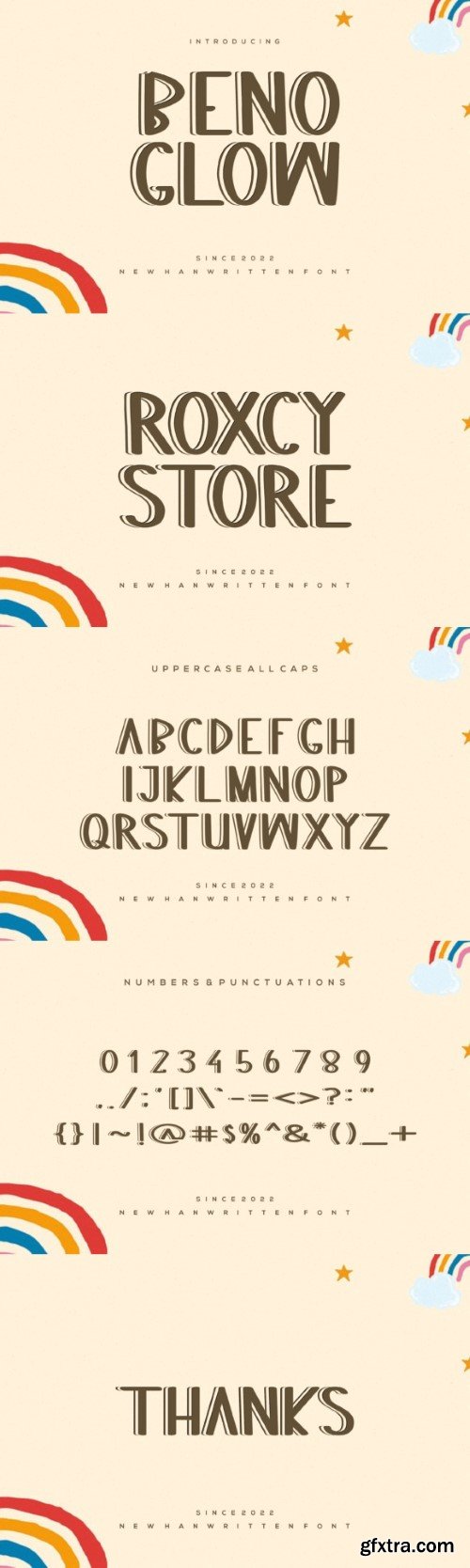
本戈洛字体
Benoglow is a sans serif font with a charming touch of style. This font is suitable for those who want a design that displays an interesting side but is still relevant for a charming modern look.